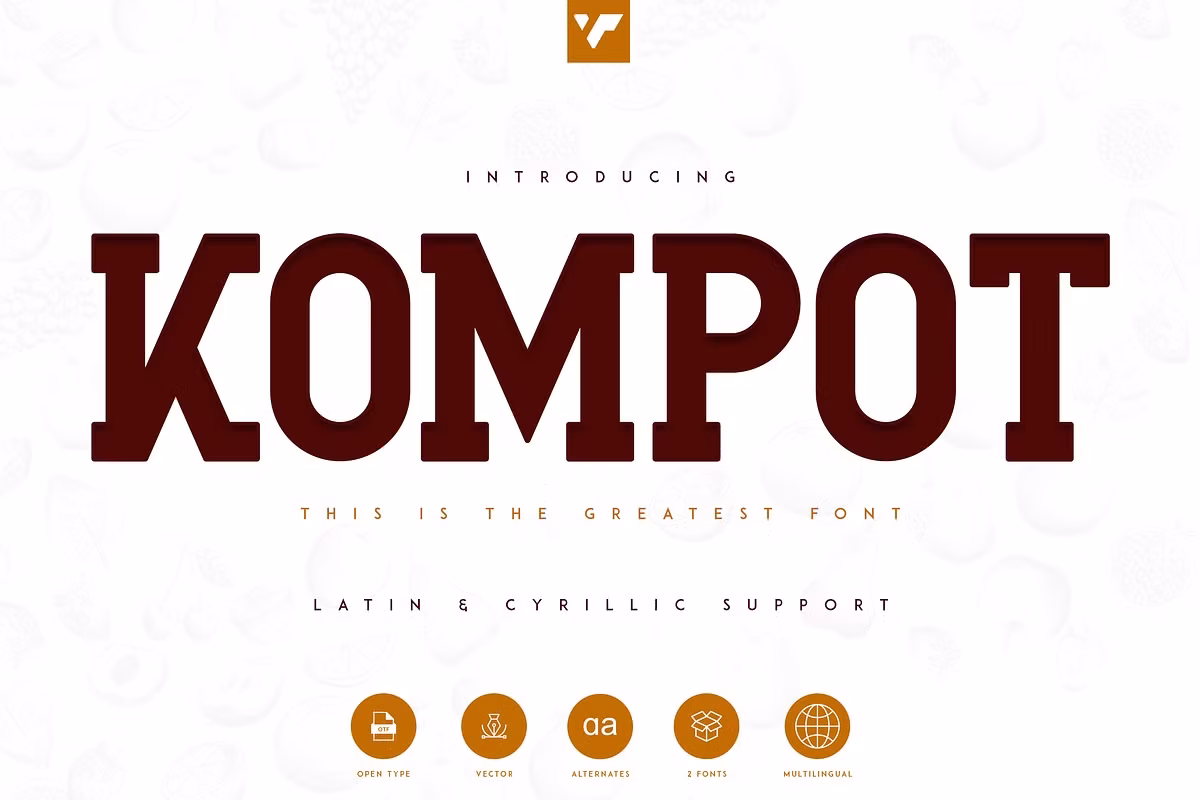
Kompot Slab Serif - 2 Fonts Free Download is a versatile and bold typeface package that brings a modern twist to the classic slab serif style. With its strong, sturdy letterforms, this font duo is perfect for creating impactful headlines, logos, posters, and branding materials. The two fonts in the bundle—each with its unique feel—allow for maximum flexibility in your designs, while maintaining a cohesive, professional look. Whether you’re working on a bold brand identity or designing an eye-catching magazine layout, Kompot Slab Serif - 2 Fonts Free Download offers you the opportunity to test the fonts in personal or concept projects before purchasing a commercial license. Embrace the power of slab serifs with a font duo that combines strength and style.